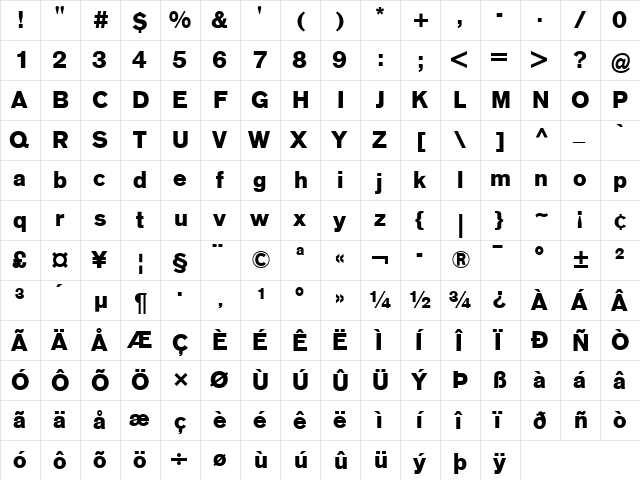
AG Old Face Bold Font Preview
AG Old Face Bold
AG Old Face Bold Font Details
| Foundry | Adobe Systems Incorporated |
Design Context for AG Old Face Typeface
AG Old Face offers clean, dependable letterforms without strong stylistic allegiance, making it a practical choice for designers who need flexibility. The heavy weight commands attention and anchors typographic hierarchies.